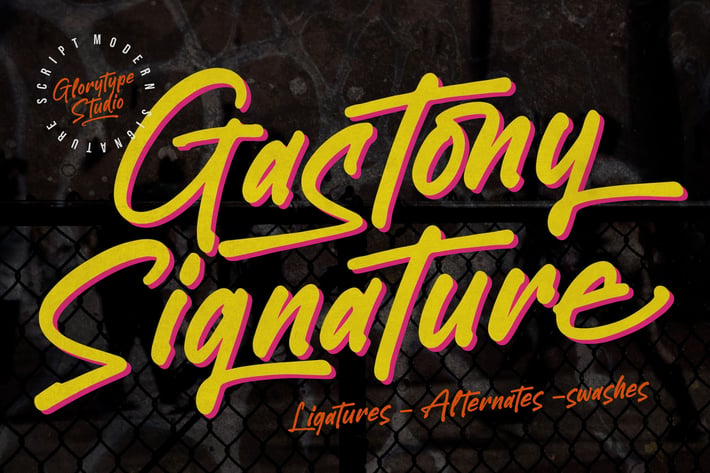
Gastony Signature Script Font
Gastony Signature is a bold and expressive signature script font crafted to bring an energetic, handcrafted personality to your designs. With its thick strokes, dynamic flow, and modern street-style signature vibe, this typeface delivers a strong visual impact — perfect for projects that need attitude, identity, and artistic flair.
Bold handwritten signature style
Dynamic strokes with energetic movement
Organic letterforms for an authentic script feel
Includes ligatures, alternates, and swashes
Ideal for both digital and printed creative work
Streetwear branding & apparel labels
Bold signature logos with personality
Posters, album covers, and urban-themed visuals
Social media headers, quotes, and creative content
Product packaging with expressive handwritten style
Photography branding and watermarks
Sport, lifestyle, or music-driven design concepts
Eye-catching editorial and promo materials
Energetic, bold, and artistically expressive — Gastony Signature elevates every design with attitude.*